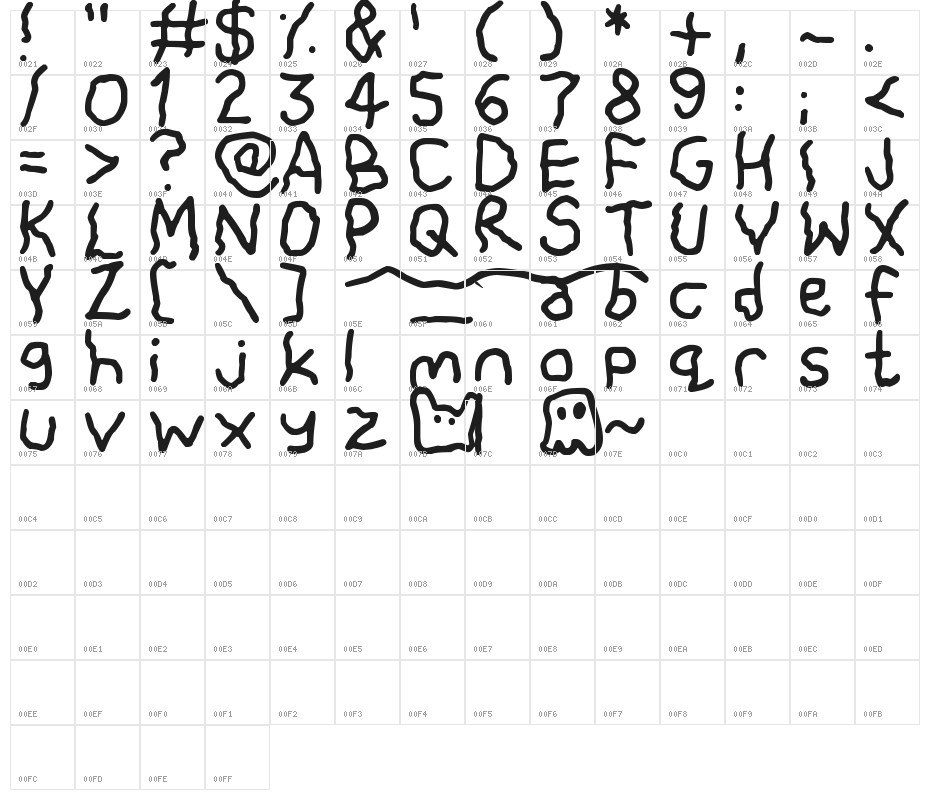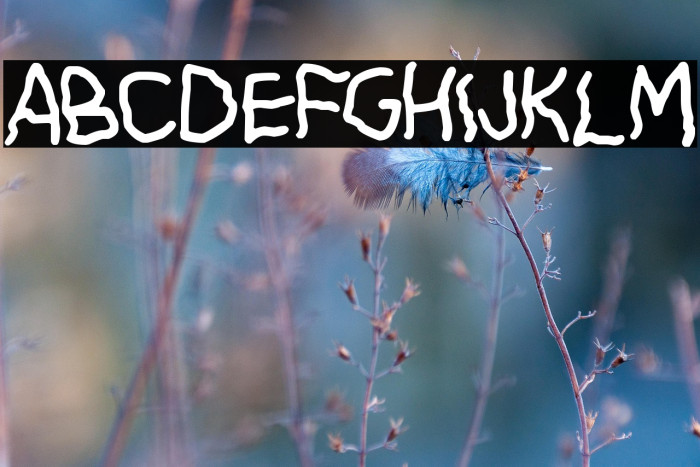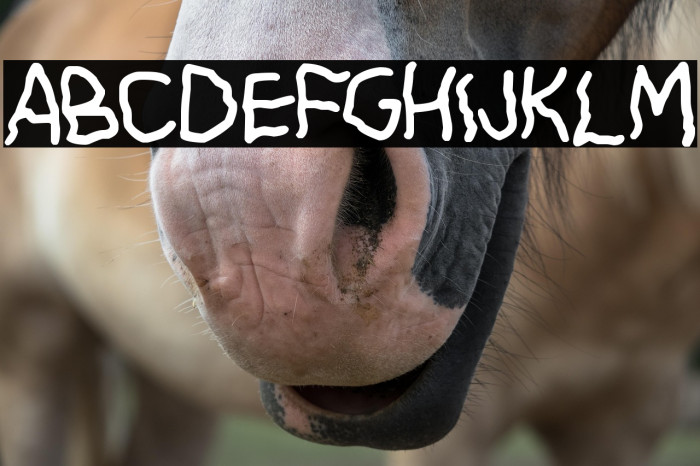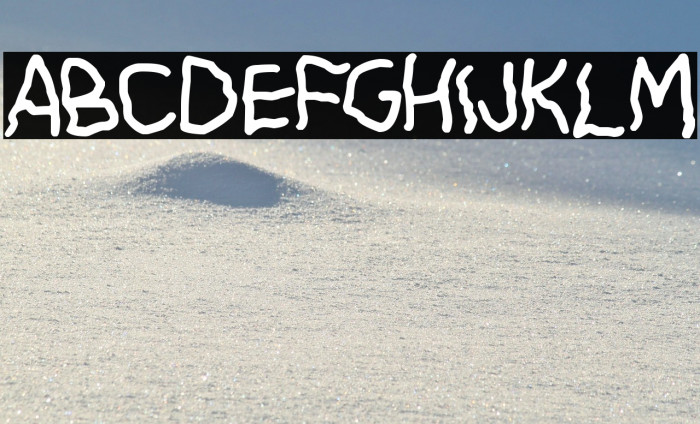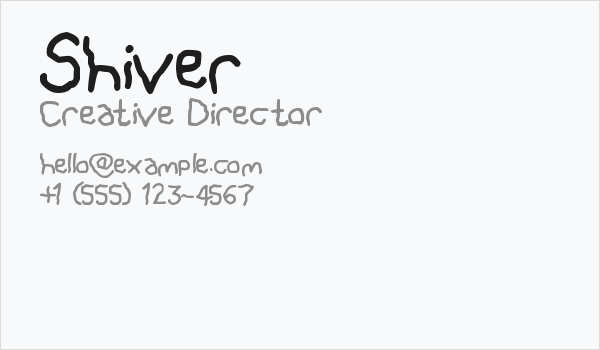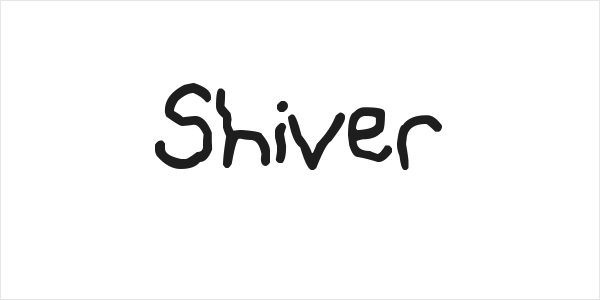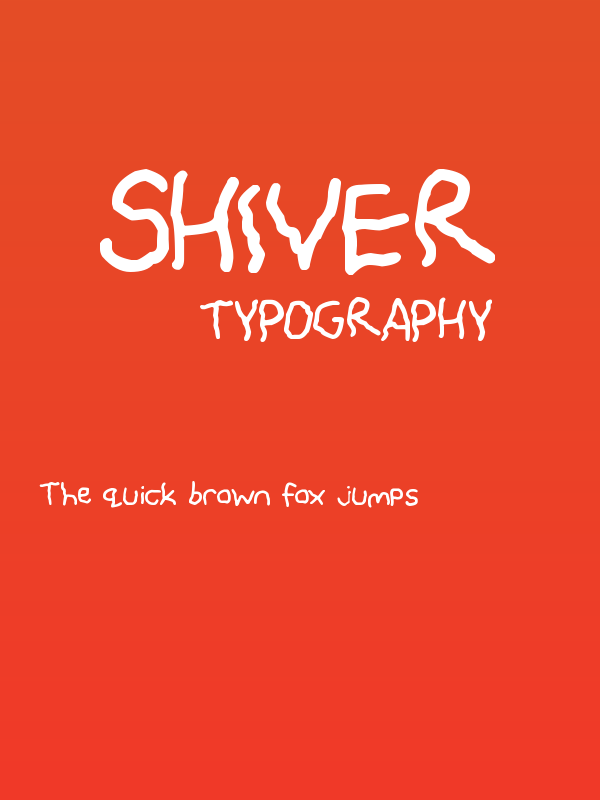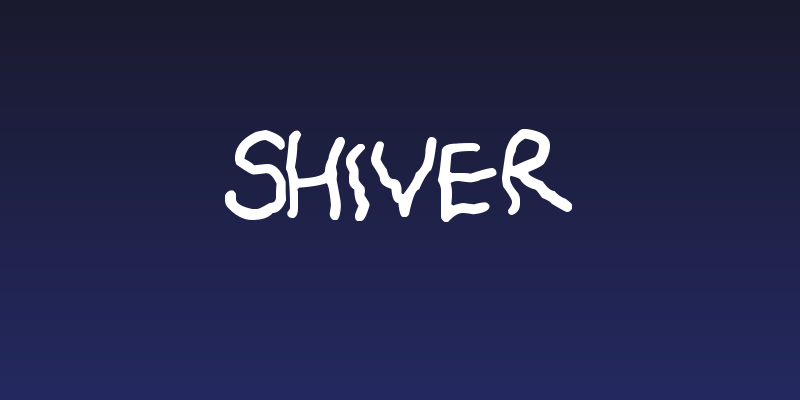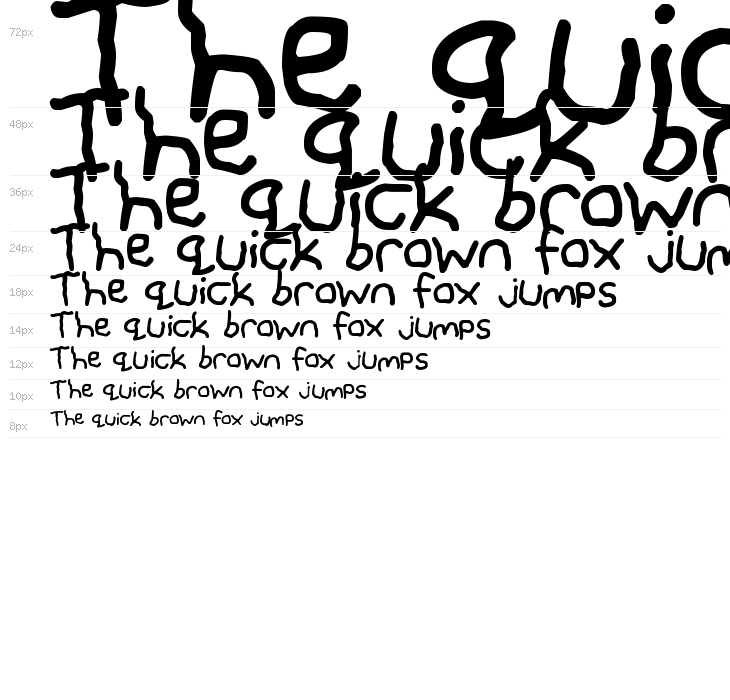
Shiver Font
Shiver Description
This font features a playful and irregular design, reminiscent of hand-drawn letters. The characters have a wavy, uneven stroke that gives them a whimsical and casual appearance. The uppercase and lowercase letters maintain a consistent style, with rounded edges and varying thickness, adding to the font's informal charm. The numbers and special characters follow the same quirky aesthetic, making this font suitable for creative and fun projects. Its unique style captures attention and conveys a sense of spontaneity and creativity.
| Proposed Projects | Ideal for children's books, comic strips, playful branding, and creative posters. |